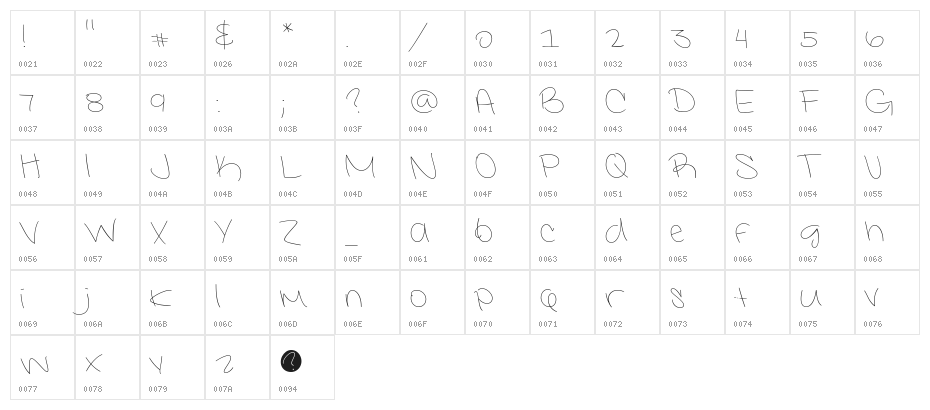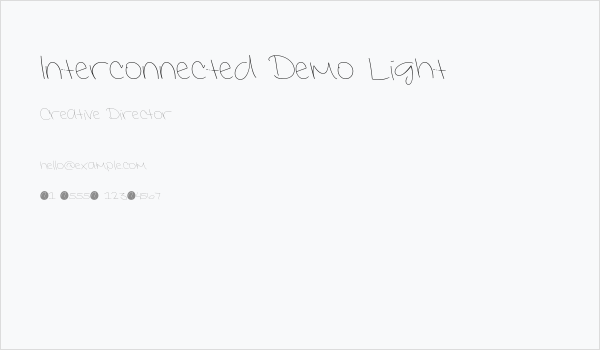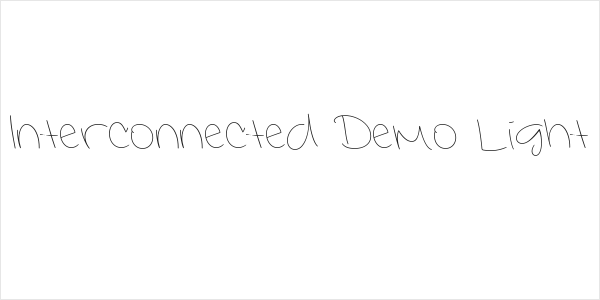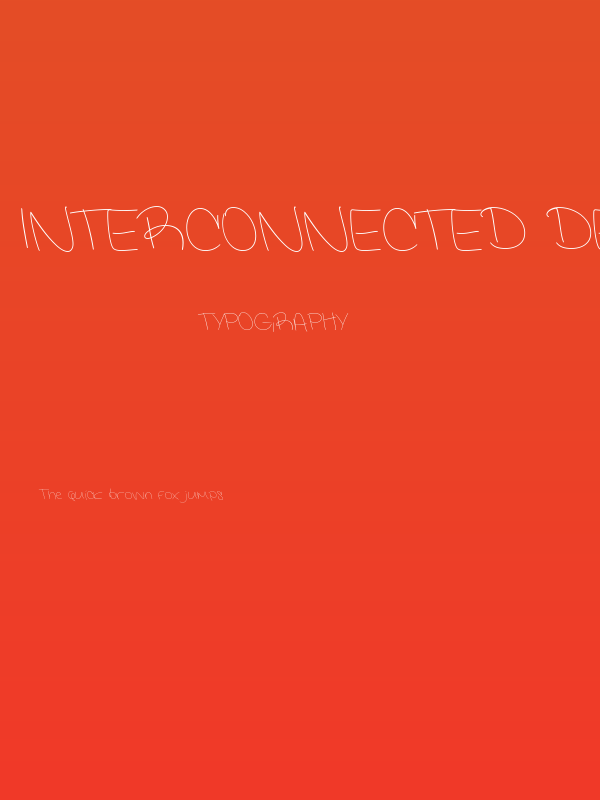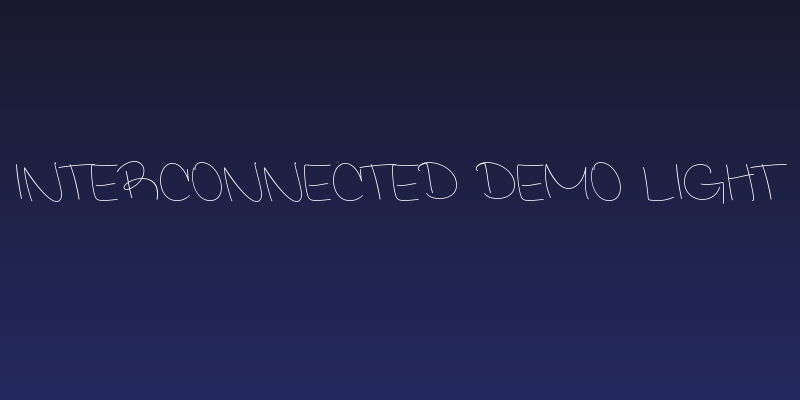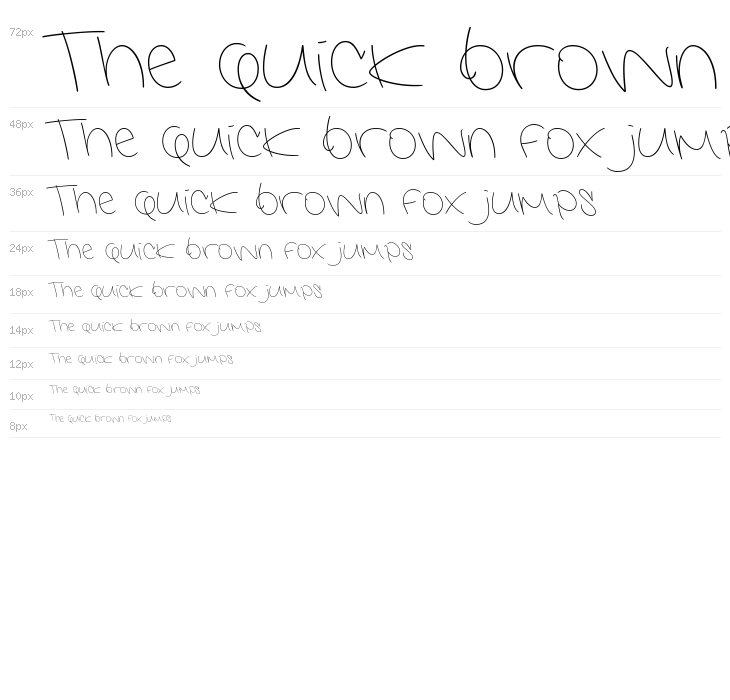
Interconnected Demo Light Font
Interconnected Demo Light Description
This font features a light, airy design with interconnected strokes that create a sense of fluidity and movement. The characters are crafted with a delicate touch, emphasizing a modern and minimalist aesthetic. The uppercase and lowercase letters maintain a consistent style, with rounded edges and a slight slant that adds a dynamic feel. The numerals and special characters follow the same design principles, ensuring uniformity across all glyphs. This font's thin lines and open forms make it ideal for projects that require a subtle yet stylish appearance.